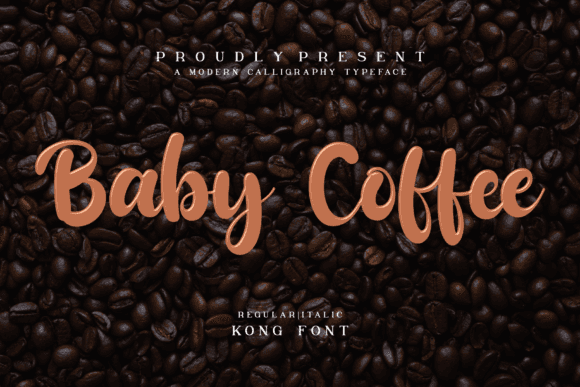
Baby Coffee Font for Crafting, Logos and Print Projects
Baby Coffee is a heartwarming font full of personality and crafted charm. Perfect for crafting and print-ready projects, this font features rounded letterforms and a handwritten flair that gives every design a welcoming, homemade feel. Ideal for invitations, greeting cards, and social media graphics, Baby Coffee adds a touch of sweetness to any project. Its versatility makes it a favorite among designers looking for a baby cute font for design, ensuring that every creation stands out with its delightful charm. Embrace the warmth of this font, and let your imagination run wild with endless creative possibilities. Its playful design makes it an excellent choice for everything from greeting cards to social media graphics. Additionally, the versatility of this font extends to branding, making it a delightful baby green font for logos that stand out with warmth and charm. With its inviting aesthetics, Baby Coffee adds a personal touch that resonates with audiences, making every project memorable.
From logo work to greeting cards, labels, and product packaging, Baby Coffee delivers a creative touch that’s ideal for casual, cozy, and artisan brands. Its smooth lines and legibility make it a versatile favorite in every designer’s toolkit.
- Brand packaging for handmade products
- Greeting cards and gift tags
- Product labels and coffee shop signage
- Printable wall art and planners
- Logos and digital branding assets
- Whimsical and friendly handwritten style
- Perfect for cozy, rustic, or handmade themes
- Effortless readability and clean curves
- Great for both digital and physical design projects
- Instant warmth for any personal or business use
| Style | Handwritten casual sans | Vintage serif | Modern brush script |
| Primary Use | Crafting, branding, packaging | Editorial layouts | Merch and t-shirts |
| Visual Feel | Warm, cozy, handwritten | Classic, structured | Expressive, trendy |